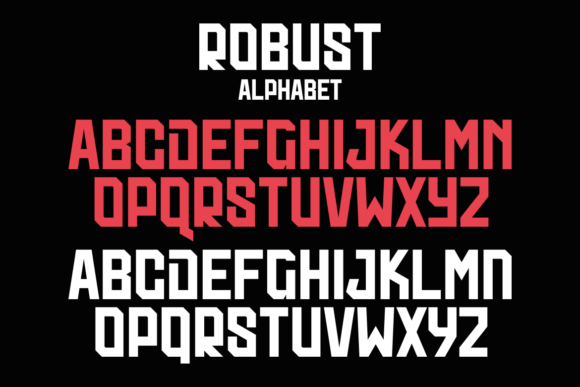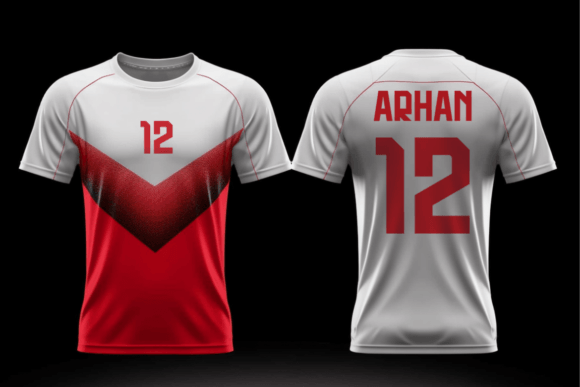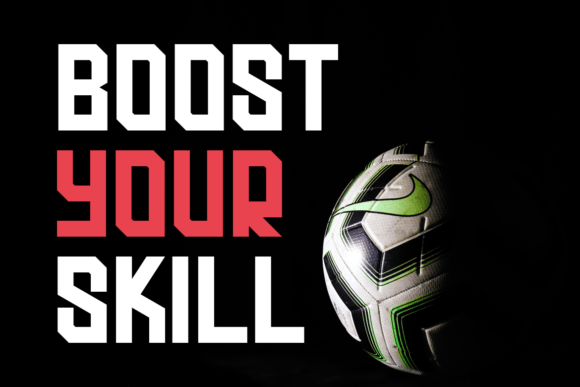
Introduction to Robust Font
Imagine being in the midst of a creative project, with a blank canvas staring back at you, and a single font style can make or break the entire design. As designers, we’ve all been there – desperately searching for that one font that captures the essence of our vision. This is where the Robust Font comes in, a game-changing display font that’s sure to elevate your creative project to new heights.
| 👤 Author | maikofarazhatta |
With its bold and authentic design, the Robust Font is the perfect addition to any branding project, from logos to template designs, and even esports-related graphics. Its high-quality design makes it an ideal choice for designers looking to add a touch of sophistication to their work.
Key Features of Robust Font
- High-quality typography with precise font rendering, suitable for creative projects.
- Features a transparent background, allowing for seamless integration with various design elements.
- Designed to be highly legible across multiple resolutions, including 72 dpi and 300 dpi.
- Supports a wide range of languages, making it a versatile choice for international creative projects.
- Includes a comprehensive character set, including uppercase and lowercase letters, numbers, and punctuation marks.
Honest Review: Robust Font
I recently came across the Robust Font and was excited to give it a try. As a designer, I’m always on the lookout for high quality design resources to enhance my creative projects.
What works well with the Robust Font is its clean and modern aesthetic. The font is perfect for use on a transparent background, allowing the text to stand out and making it a great choice for minimalist designs. The font is also available for free download, which is a huge bonus for designers on a budget.
Pros:
- High quality and modern aesthetic
- Perfect for use on a transparent background
- Great for minimalist designs
Cons:
- Only available in a limited number of weights
- May not be suitable for complex or lengthy text
Overall, I’m impressed with the Robust Font and would definitely recommend it for any creative project that requires a clean and modern look. While it may have some limitations, the pros far outweigh the cons, making it a valuable addition to any designer’s toolkit.
Use the Robust Font in a creative project, such as a logo or typography-based design. This font is a great design resource for those looking for a unique and modern look.
Getting the Most Out of Robust Font
Experiment with different font combinations to add depth and interest to your design. Use the Robust Font in a creative project, such as a logo or typography-based design.
For a high-quality design, use a transparent background to make your text stand out.
The Robust Font is a versatile font that can be used in a variety of creative projects, including logos, typography-based designs, and website headers.
This font is a great design resource for those looking for a unique and modern look.